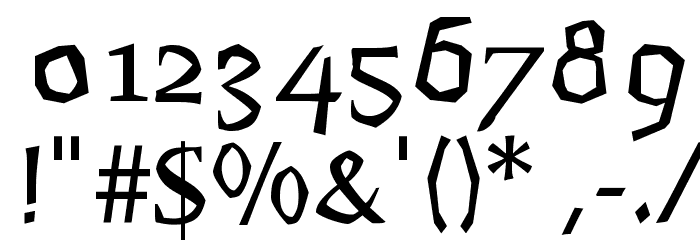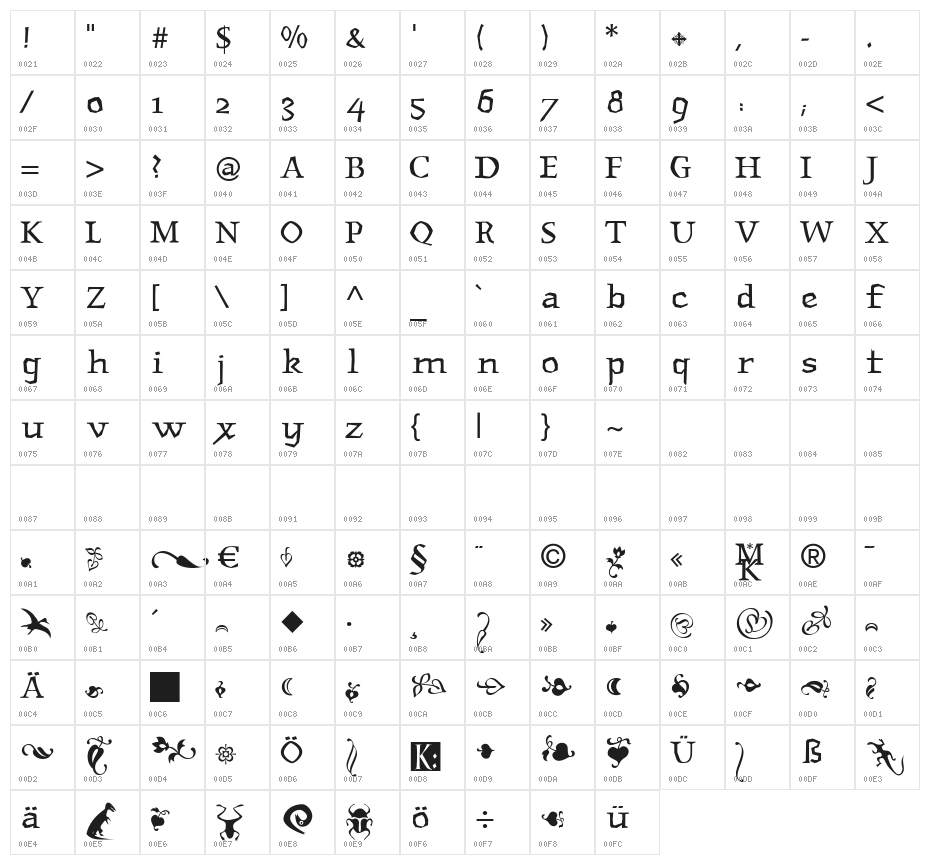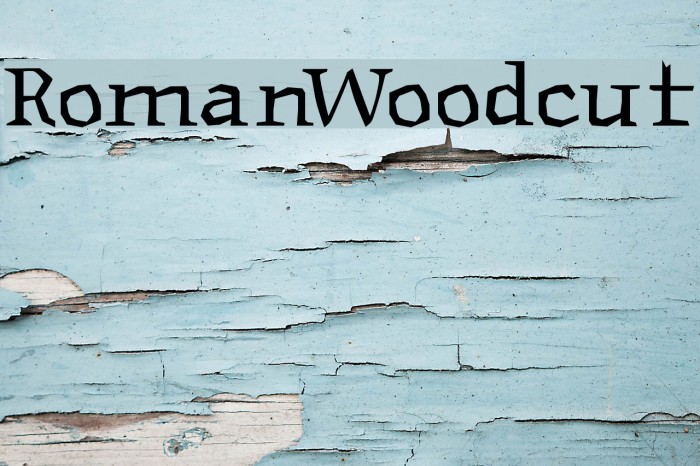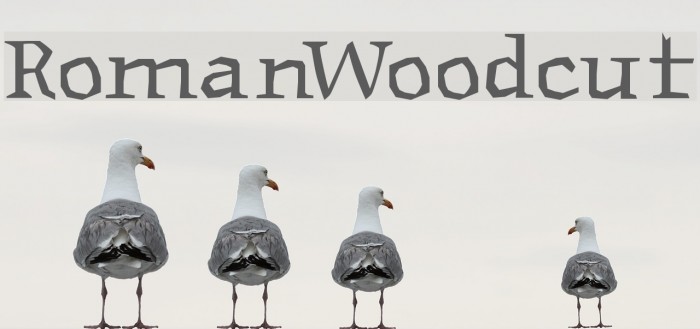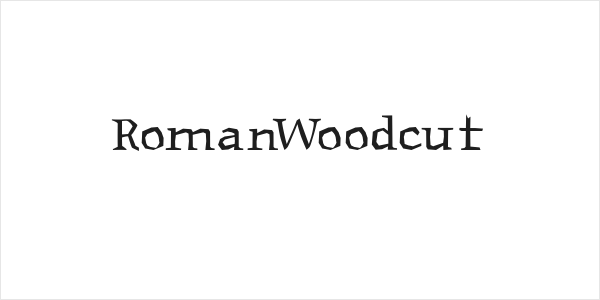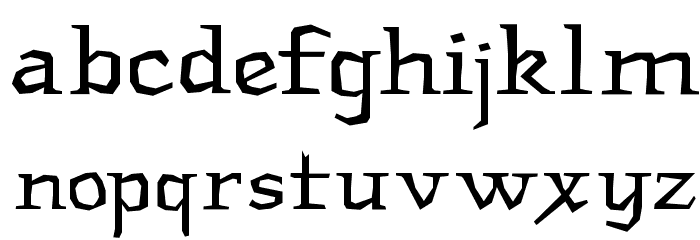
RomanWoodcut Font
RomanWoodcut Description
This font exudes a classic and historical charm, reminiscent of traditional woodcut prints. The characters are bold and angular, with a distinct handcrafted feel that suggests a vintage aesthetic. Each letter features uneven strokes and subtle imperfections, adding to its rustic appeal. The uppercase letters are particularly striking, with sharp serifs and a slightly condensed form. The lowercase letters maintain a consistent style, offering a harmonious balance between readability and artistic flair. Numbers and special characters follow the same design principles, ensuring a cohesive look across all text elements.